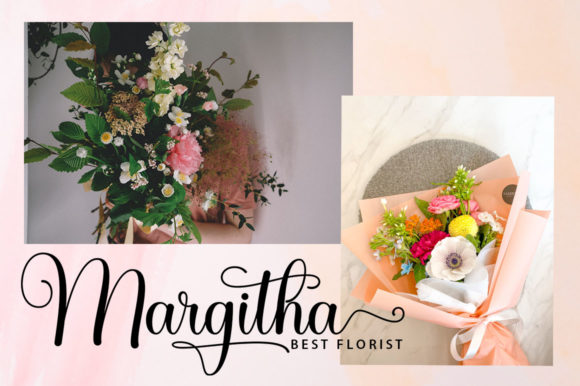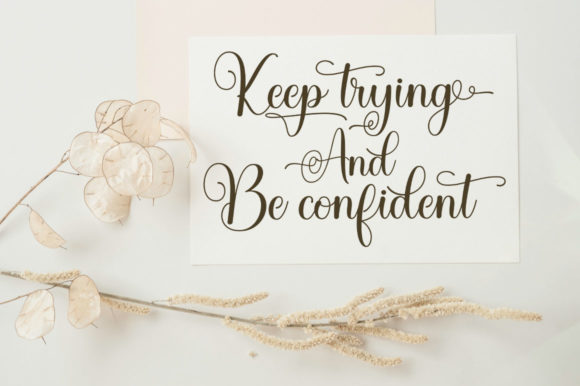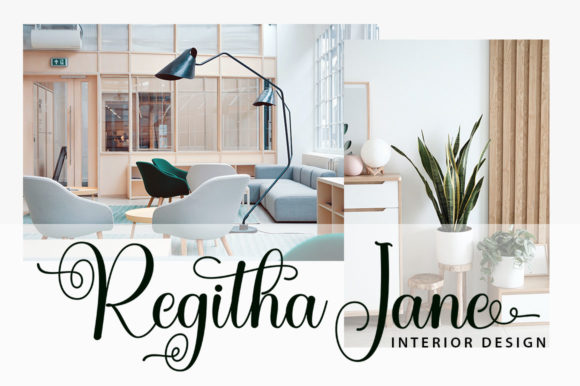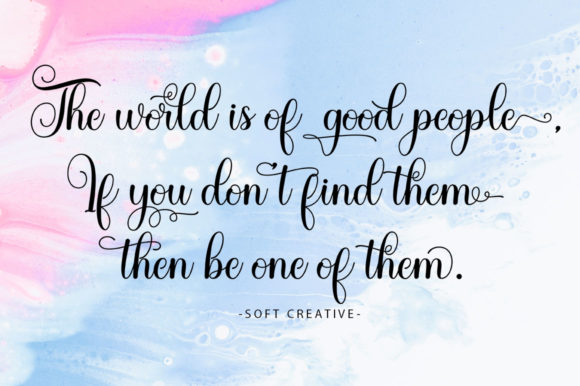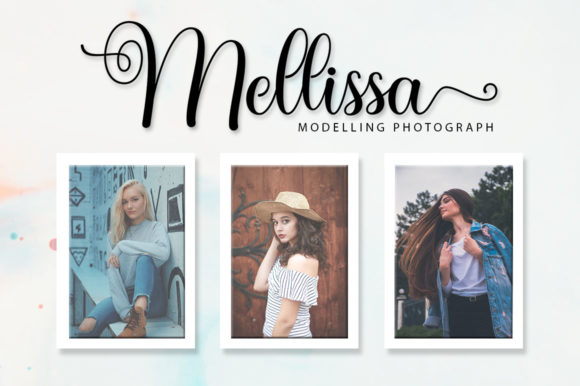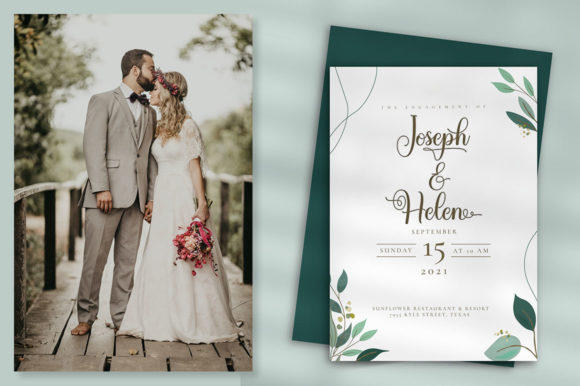
Hagia Sophia Font: Elevate Your Designs with Elegance and Sophistication
In the world of typography, fonts play a crucial role in conveying the tone and personality of a design. For those seeking a delicate and elegant handwritten font, look no further than the Hagia Sophia Font. This beautiful font is perfect for designers and crafters who want to add a touch of sophistication and personalization to their work.
What is Hagia Sophia Font?
Hagia Sophia Font is a stunning handwritten font that exudes elegance and refinement. Its delicate strokes and intricate details make it an ideal choice for designs that require a personal touch. Whether you’re creating wedding invitations, thank you cards, greeting cards, or logos, this font is sure to impress.
Key Features of Hagia Sophia Font
- Delicate and Elegant: Hagia Sophia Font boasts a delicate and elegant design that adds a touch of sophistication to any project.
- Handwritten Style: This font features a beautiful handwritten style that gives your designs a personal and unique feel.
- PUA Encoded: Hagia Sophia Font is PUA encoded, making it easy to access all glyphs and swashes.
- Versatile: This font is perfect for a variety of designs, including wedding invitations, thank you cards, weddings, greeting cards, logos, and more.
Uses of Hagia Sophia Font
Hagia Sophia Font is a versatile font that can be used in a variety of design projects. Here are some ideas to get you started:
- Wedding Invitations: Add a touch of elegance to your wedding invitations with Hagia Sophia Font.
- Thank You Cards: Create personalized thank you cards with this beautiful font.
- Greeting Cards: Use Hagia Sophia Font to create stunning greeting cards for special occasions.
- Logos: Add a touch of sophistication to your logos with this elegant font.
- Stationery: Create beautiful stationery, such as letterheads and notebooks, with Hagia Sophia Font.
Benefits of Using Hagia Sophia Font
Using Hagia Sophia Font in your designs offers several benefits, including:
- Unique and Personalized: This font adds a personal touch to your designs, making them stand out from the crowd.
- Elegant and Sophisticated: Hagia Sophia Font exudes elegance and sophistication, making it perfect for high-end designs.
- Easy to Use: This font is PUA encoded, making it easy to access all glyphs and swashes.
- Versatile: Hagia Sophia Font can be used in a variety of design projects, from wedding invitations to logos.
Tips for Using Hagia Sophia Font
Here are some tips for using Hagia Sophia Font in your designs:
- Pair with Other Fonts: Pair Hagia Sophia Font with other fonts to create a unique and interesting design.
- Use Swashes and Glyphs: Use the swashes and glyphs in Hagia Sophia Font to add a personal touch to your design.
Hagia Sophia Font is a beautiful and elegant handwritten font that is perfect for designers and crafters seeking to add a touch of sophistication to their work. With its delicate strokes, intricate details, and PUA encoding, this font is sure to impress. Whether you’re creating wedding invitations, thank you cards, greeting cards, or logos, Hagia Sophia Font is a versatile and elegant choice.